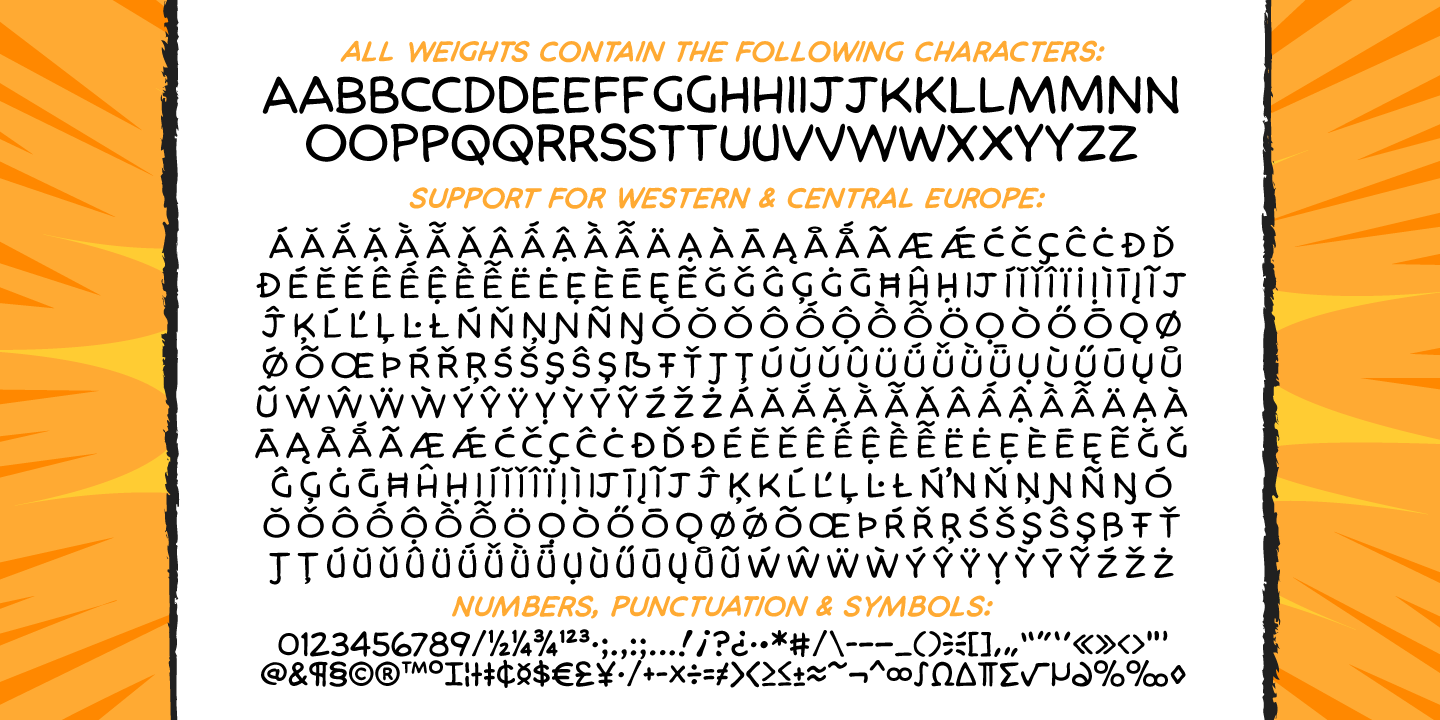
Brian Bolland Font is perfect for comic book design applications including graphic novel lettering, superhero publications, comic strip graphics, pop art projects, retro gaming interfaces, vintage comic branding, collector merchandise, and nostalgic entertainment marketing. This distinctive typeface captures the golden age of comic book artistry and sequential storytelling excellence.
What makes Brian Bolland Font exciting is its authentic representation of classic comic book lettering traditions with precise craftsmanship that honors the golden age of sequential art. The font features bold, clear letterforms with optimal readability that maintains the dynamic energy essential for comic book storytelling. Its artistic character embodies the creativity and precision that defines legendary comic book craftsmanship.
The Brian Bolland Font family includes various comic-inspired styles such as Regular, Bold, Outline, and Sound Effect variations that enhance the comic book aesthetic. These specialized options provide comprehensive design solutions for creating authentic comic book projects that capture the essence of professional sequential art and graphic storytelling.
This specialized display typeface represents the pinnacle of comic book typography and graphic art excellence. Comic publishers and entertainment brands choose Brian Bolland Font Free Download for its exceptional ability to communicate artistic authenticity and storytelling precision. The font's comic heritage makes it perfect for graphic novels, entertainment properties, and pop culture brands that want to honor the rich tradition of comic book artistry. Its professional character ensures memorable visual impact while maintaining the authentic aesthetic that defines exceptional comic-focused design work.